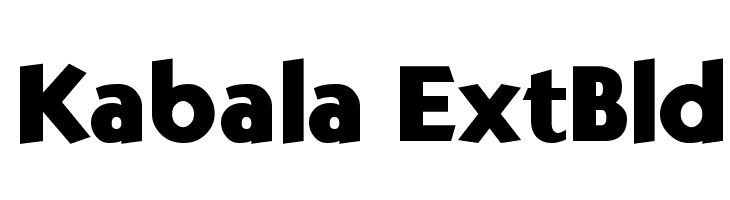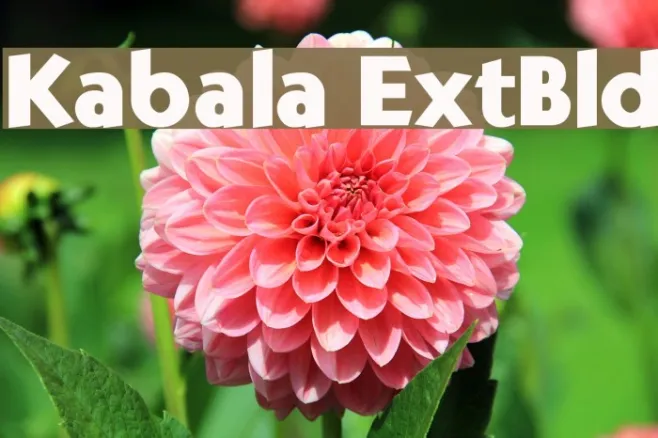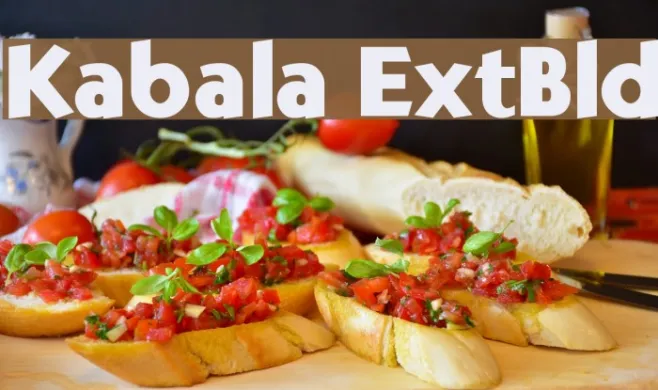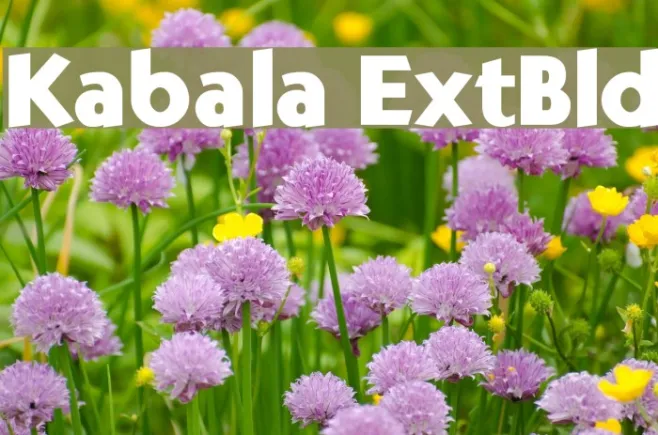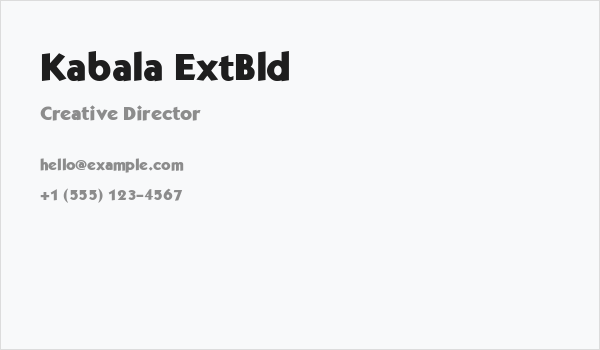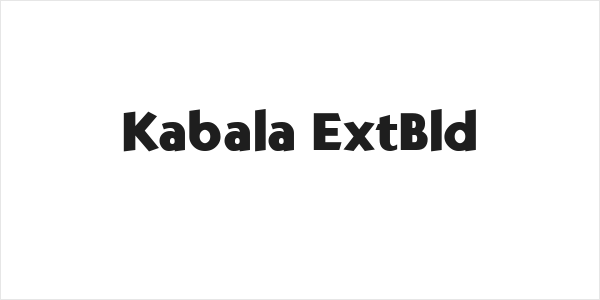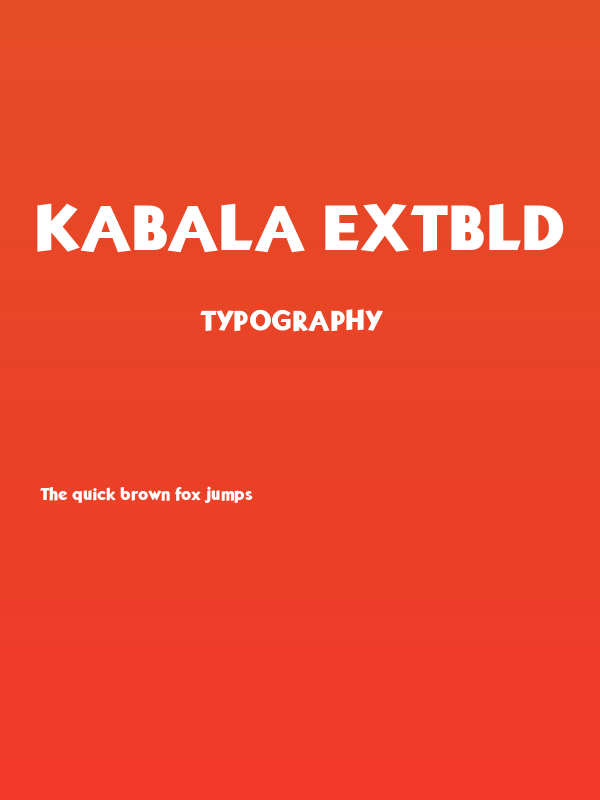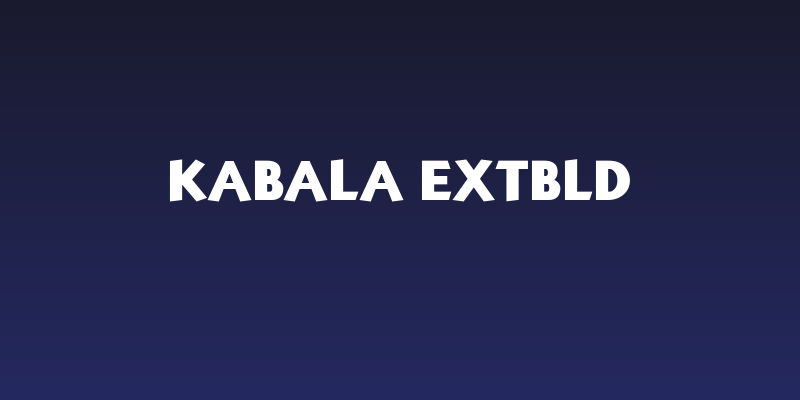
Kabala ExtBld Font
Kabala ExtBld Description
This font features bold, geometric letterforms with a strong presence. The uppercase letters are particularly striking, with a uniform thickness that gives them a solid and impactful appearance. The lowercase letters maintain the boldness of the uppercase, with rounded edges that add a touch of softness to the overall design. The numerals are consistent with the bold style, ensuring readability and visual harmony. Special characters are well-integrated, maintaining the font's cohesive look. This font is ideal for making a statement, with its bold and confident style.
| Proposed Projects | Ideal for headlines, posters, branding, and any project requiring a bold statement. |